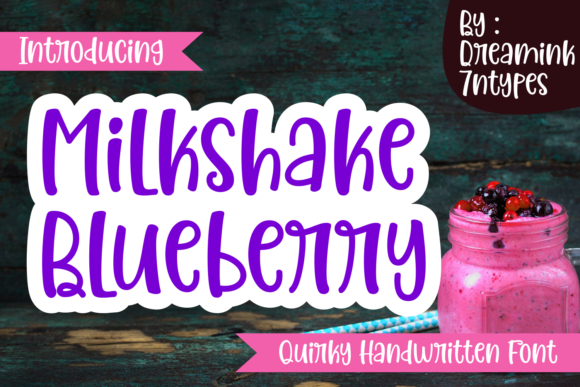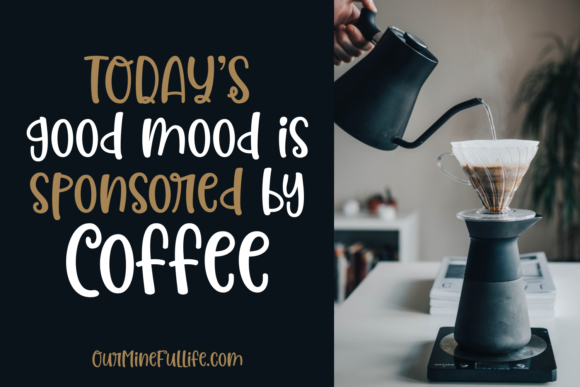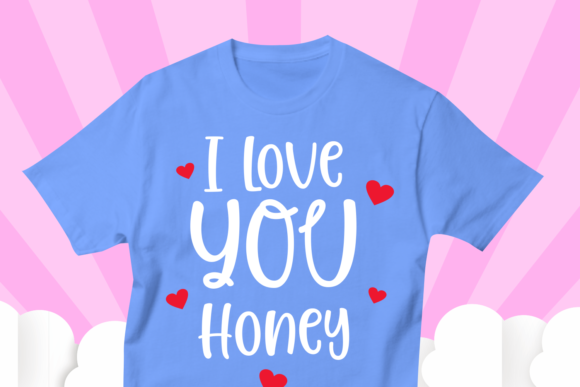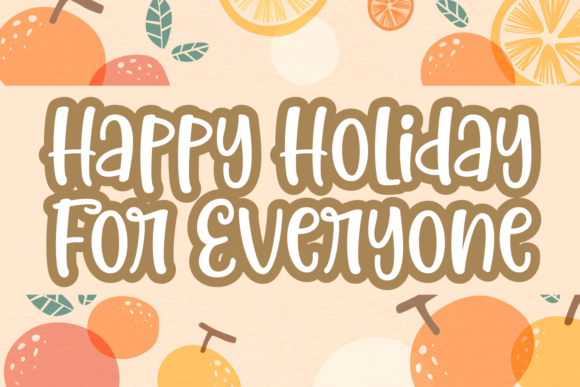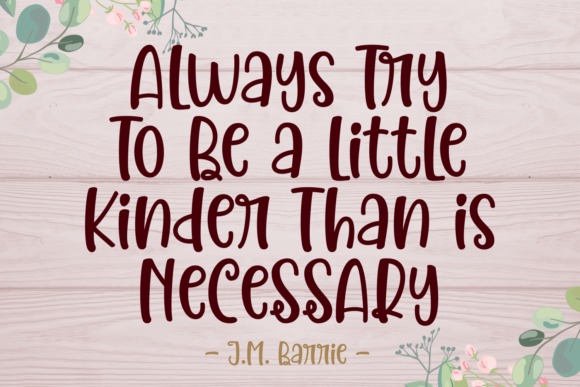
About Milkshake Blueberry Font
Milkshake Blueberry is a delightful and quirky handwritten font that brings a sense of fun and whimsy to your creative projects. With its playful and energetic style, this font is perfect for a wide range of applications, whether you’re designing inspirational wall posters, creating unique branding materials, or adding a touch of personality to your social media graphics.
The charm of Milkshake Blueberry lies in its hand-drawn letterforms, which exude a sense of spontaneity and individuality. Each character has a slightly irregular shape, mimicking the look of handwritten text. This gives your designs a personal touch and adds a dose of authenticity.
One of the great things about Milkshake Blueberry is its versatility. It can be used in various contexts, from designing inspirational wall posters to creating eye-catching logos and branding materials. The font’s playful and quirky nature allows you to communicate your brand’s personality and capture the attention of your audience.
When designing inspirational wall posters, Milkshake Blueberry can bring your messages to life with its whimsical and friendly appearance. Whether you’re creating motivational quotes, affirmations, or uplifting statements, the font’s playful style adds a touch of positivity and creativity to your designs.
For branding purposes, Milkshake Blueberry can be a great choice for businesses that want to convey a sense of fun and approachability. It can work well for brands in the food and beverage industry, art and design sectors, children’s products, and any other industry that wants to project a playful and friendly image.
When using Milkshake Blueberry in social media graphics, you can create eye-catching posts that stand out in busy feeds. Whether you’re sharing product promotions, inspirational quotes, or announcing special events, the font’s unique and quirky style can capture the attention of your followers and add a touch of creativity to your posts.
When working with Milkshake Blueberry, consider experimenting with different letter spacing, sizes, and colors to create visually interesting compositions. The font’s playful nature allows for experimentation and can be combined with other typefaces to create dynamic and engaging designs.
Overall, Milkshake Blueberry is a fun and quirky handwritten font that adds a playful and energetic touch to your creative projects. Whether you’re designing inspirational wall posters, creating branding materials, or crafting social media graphics, this font can help you communicate your message with style and personality. Embrace the whimsical charm of Milkshake Blueberry and let it inspire your creativity!